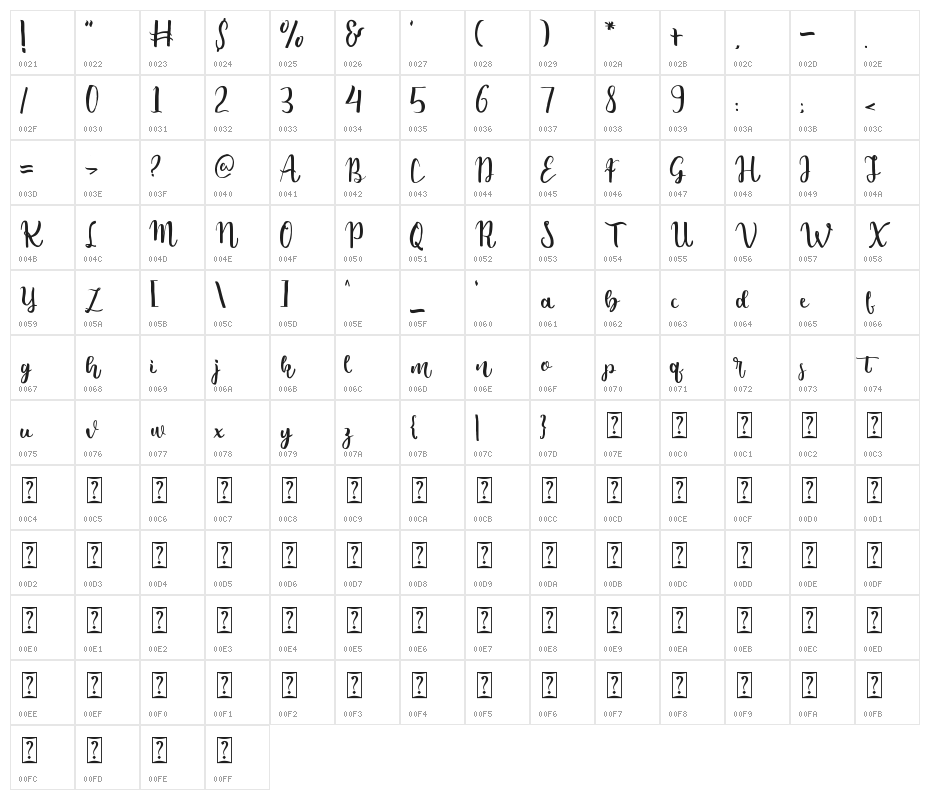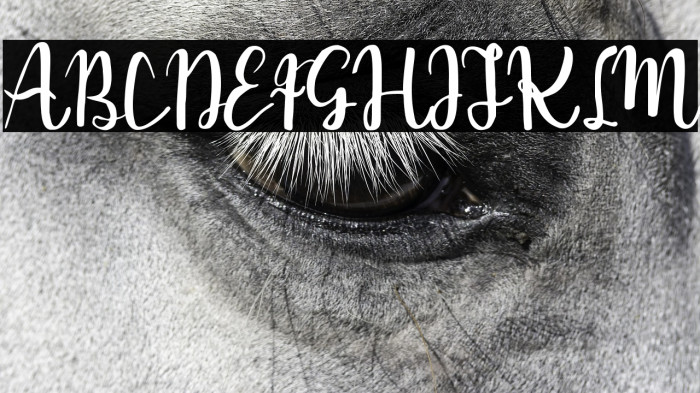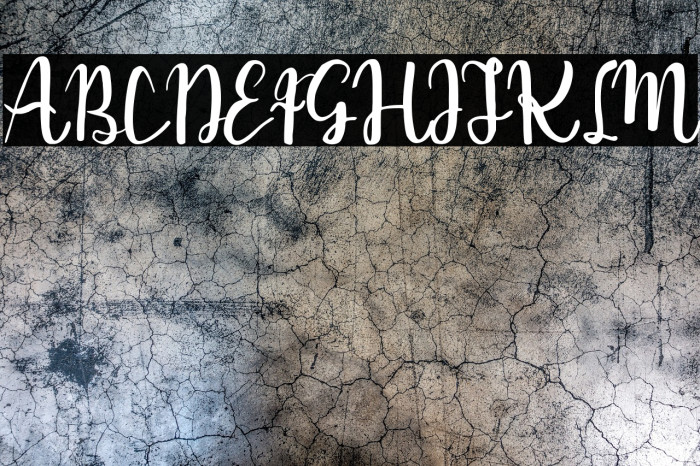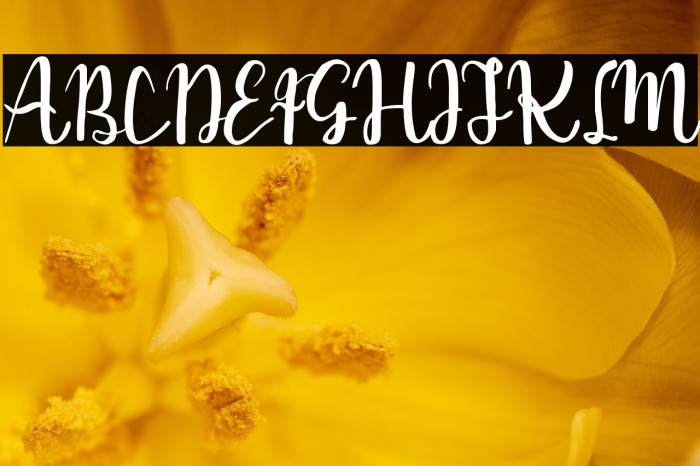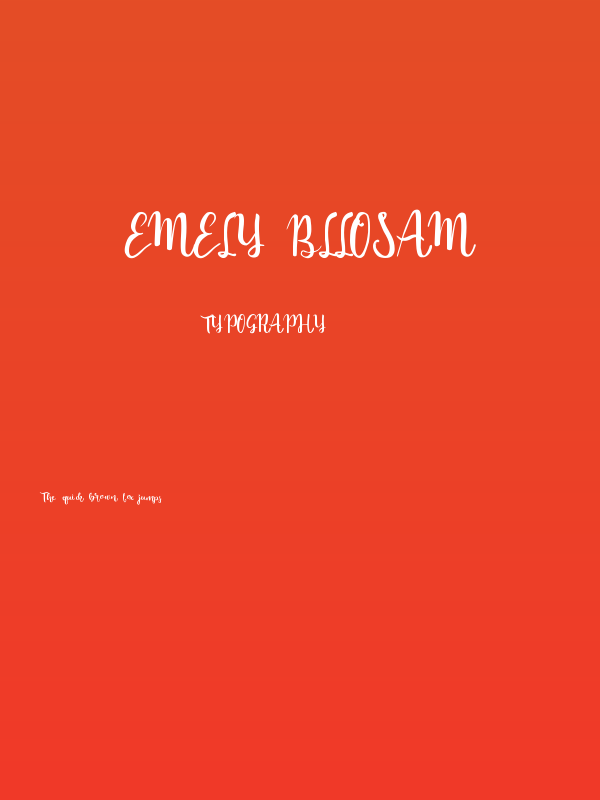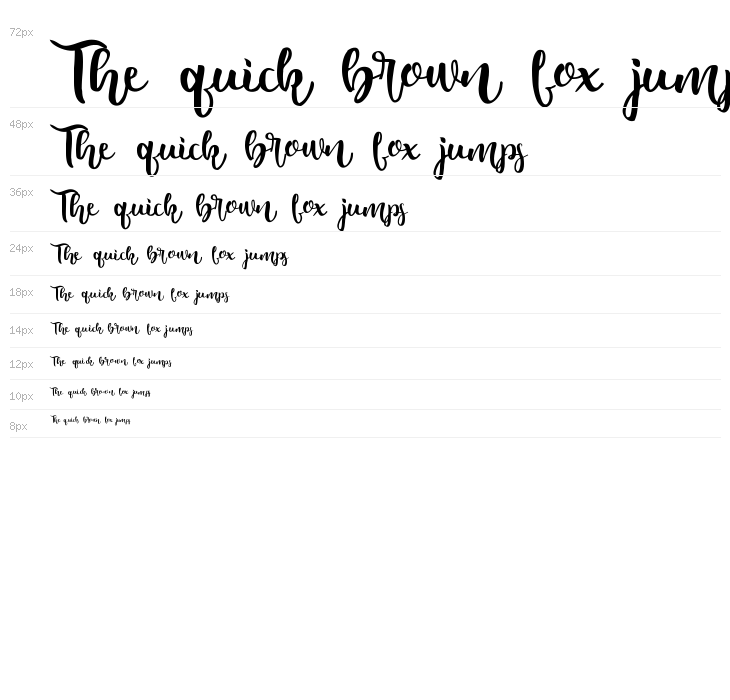
emely bllosam Font
emely bllosam Description
This font features a playful and whimsical script style, characterized by its flowing, cursive letters that mimic a handwritten aesthetic. The uppercase letters are bold and slightly exaggerated, with unique flourishes that add a touch of elegance and creativity. The lowercase letters maintain a consistent flow, with smooth curves and loops that enhance the overall fluidity of the design. The numerals are bold and clear, ensuring readability while maintaining the font's artistic flair. Special characters are creatively integrated, adding to the font's versatility and charm. This font is perfect for projects that require a personal and artistic touch.